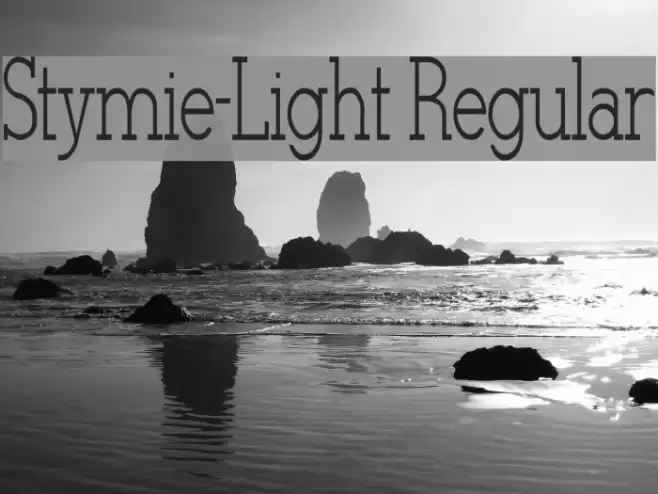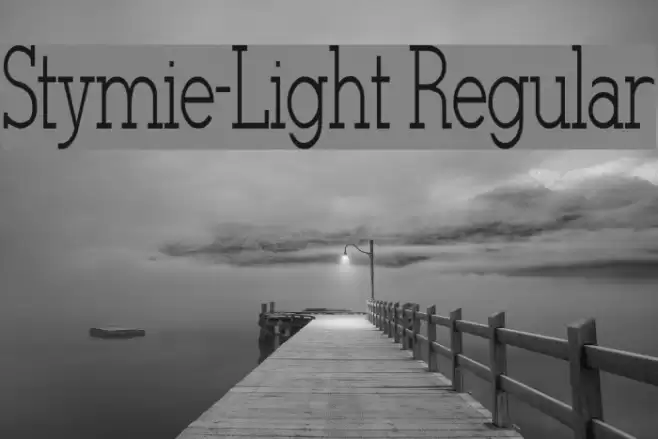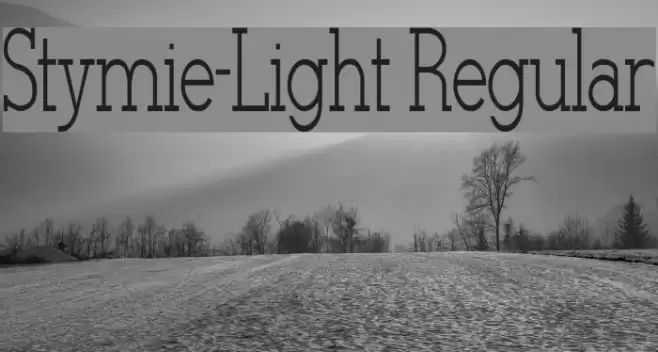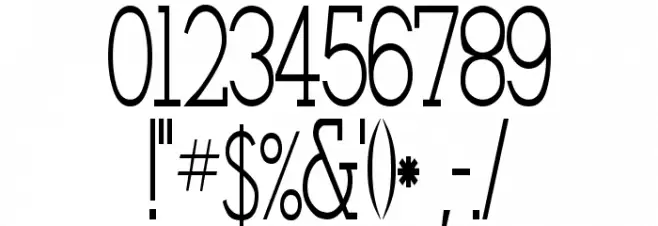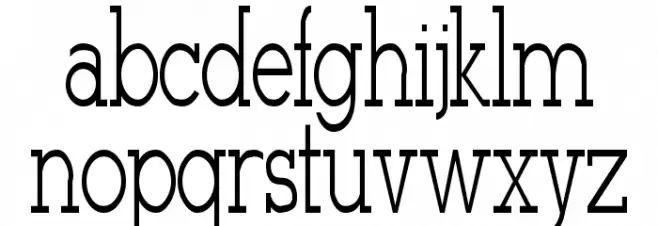
Stymie-Light Regular Font
Stymie-Light Regular Description
This font features a clean and classic serif design with a light weight, offering a sense of elegance and readability. The characters are well-proportioned with a moderate contrast between thick and thin strokes, giving it a refined appearance. The uppercase letters are tall and commanding, while the lowercase letters maintain a consistent and harmonious flow. The numerals are clear and distinct, making them easily legible. Special characters are included, adding versatility to the font's usage. The overall style is timeless, suitable for a variety of applications.
A classic serif font with a light weight and moderate contrast, offering elegance and readability from Serif fonts.
- Proposed Projects: Ideal for editorial design, book covers, formal invitations, and branding projects that require a touch of sophistication.
- Weight: Light
- Overall Style: Classic
- Use Case: Headlines, Body text, Logos